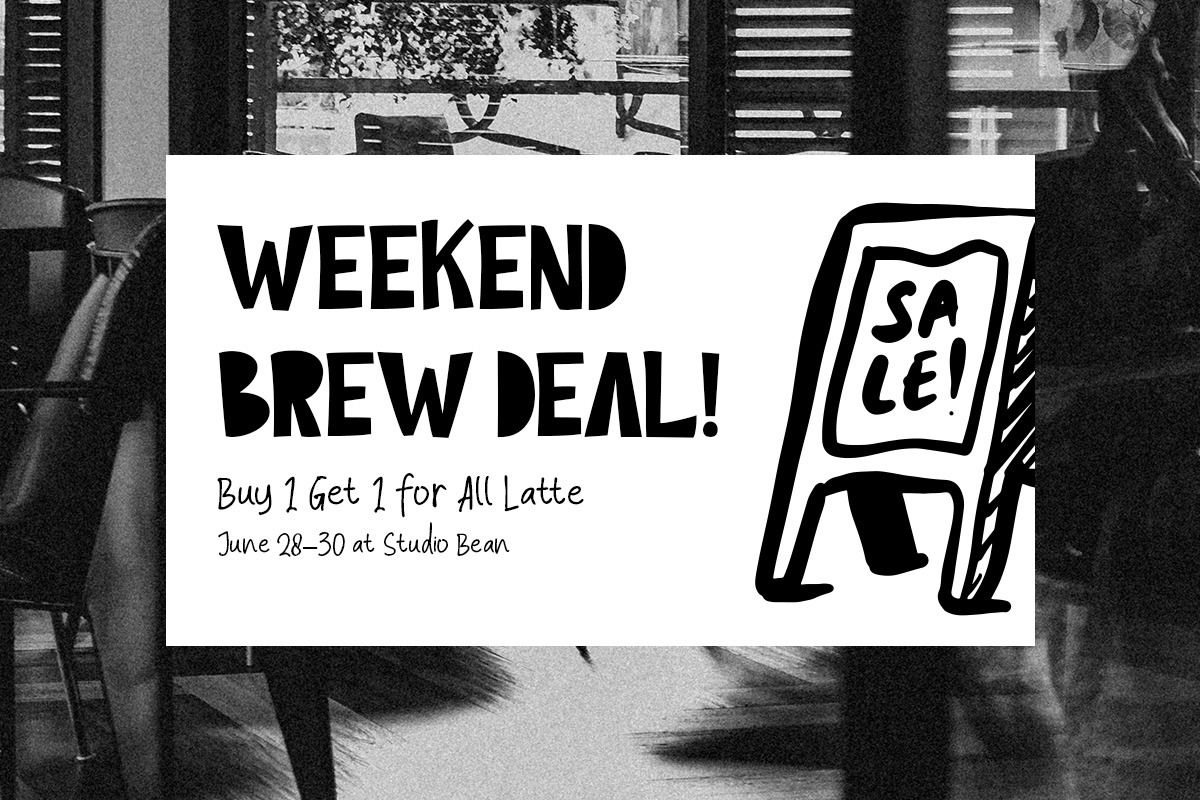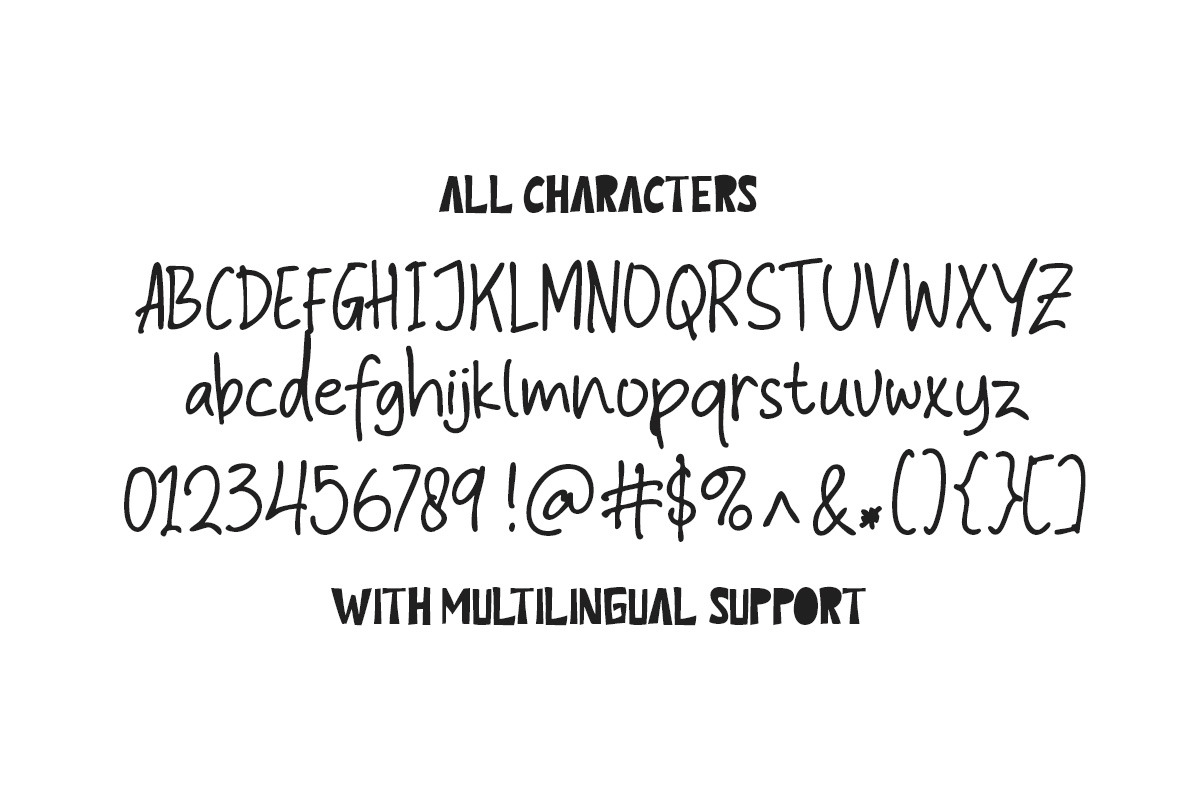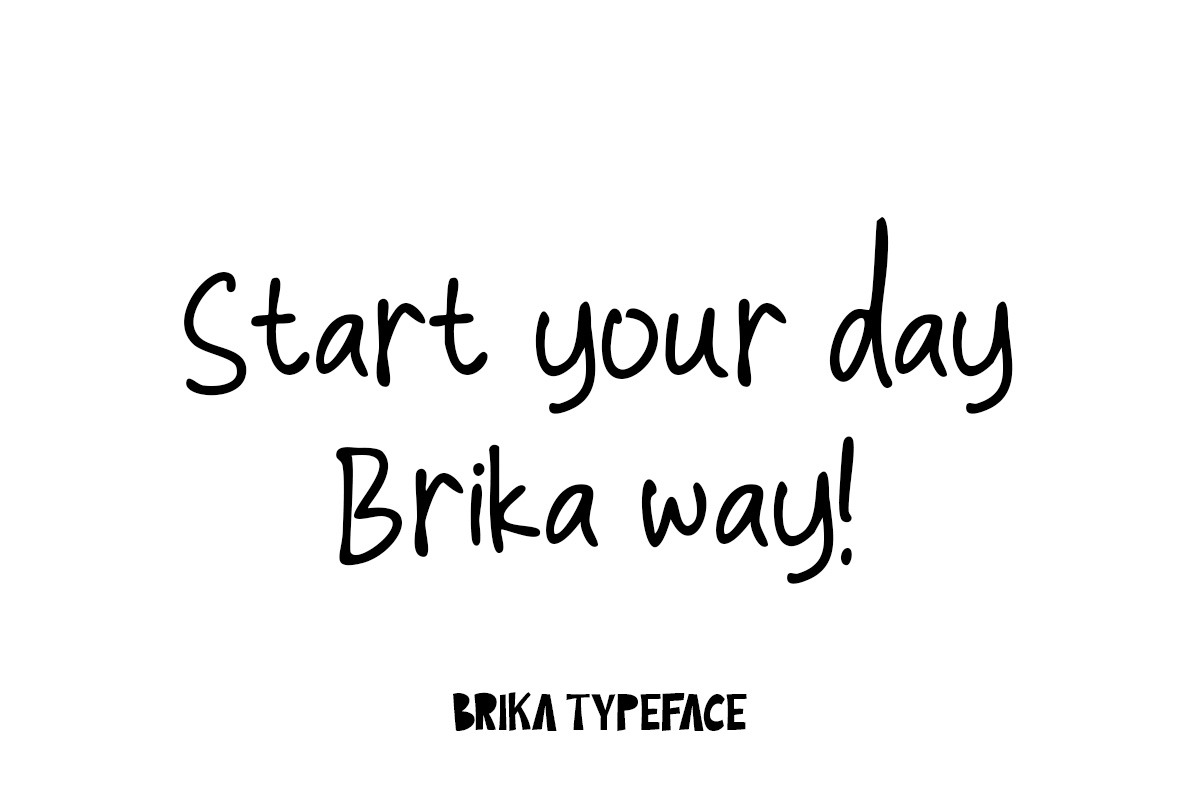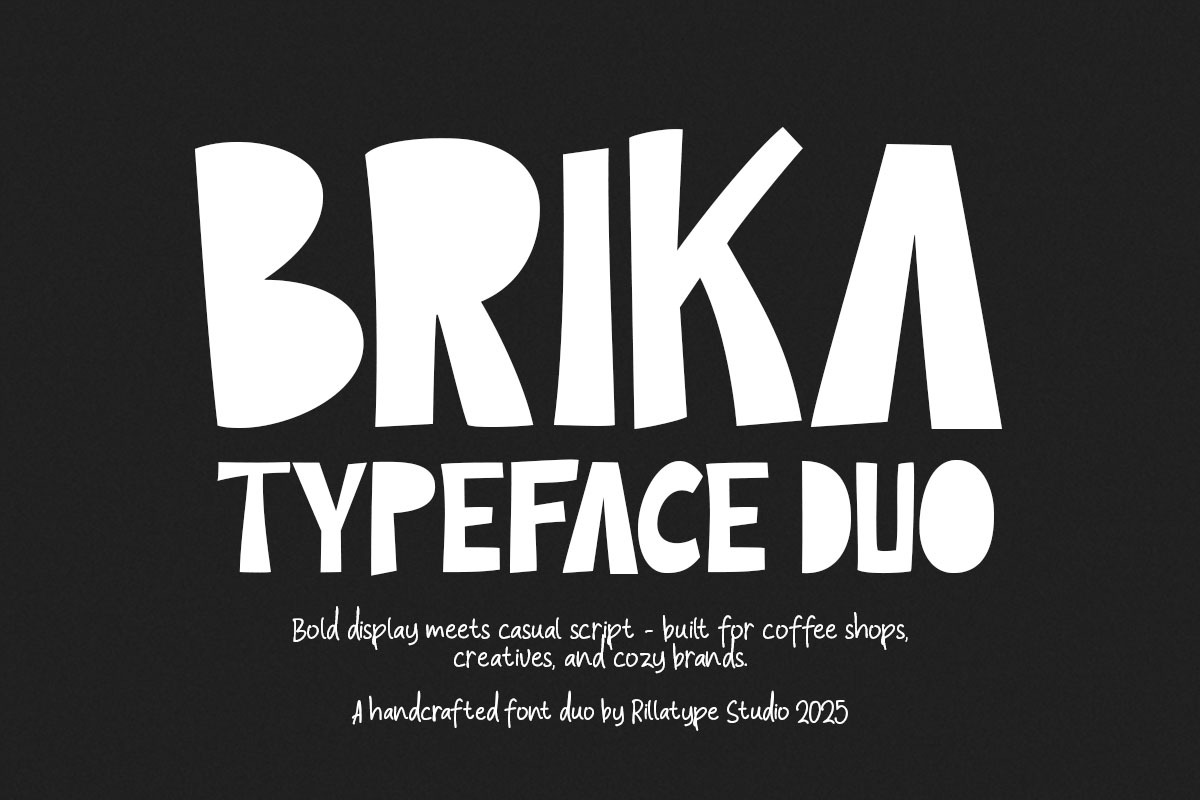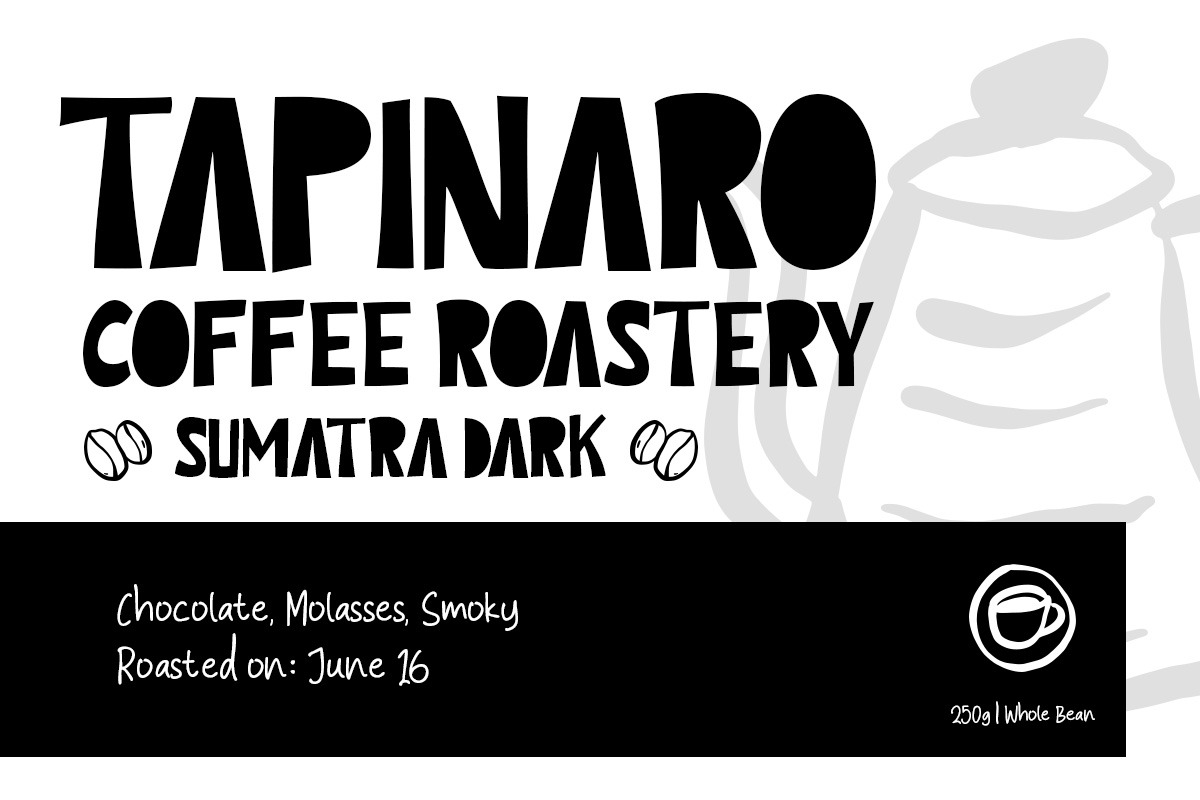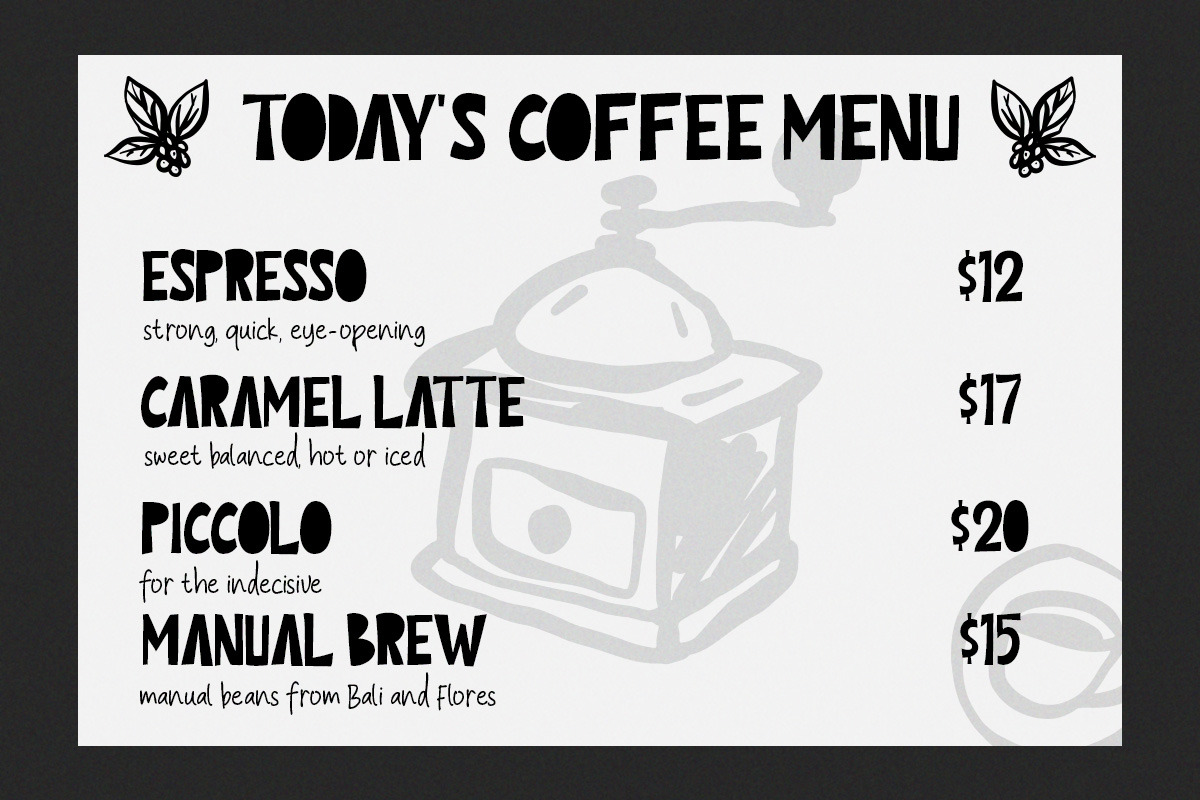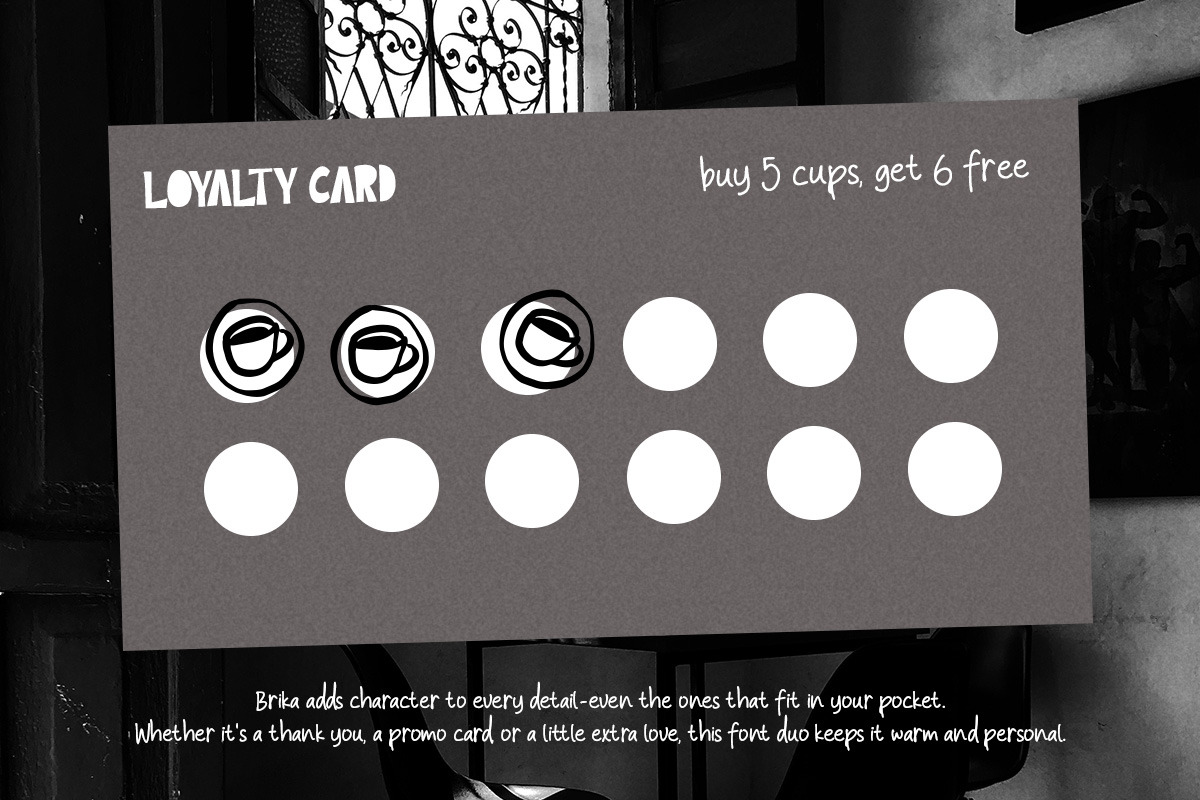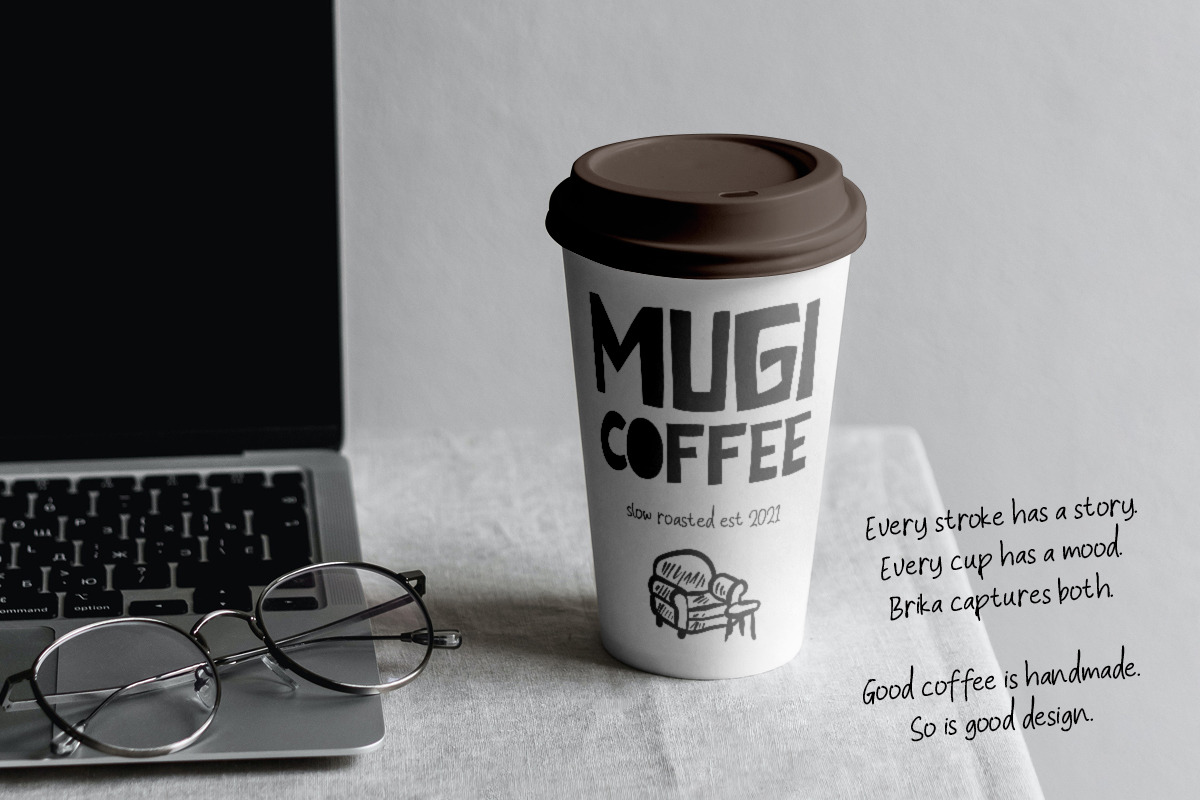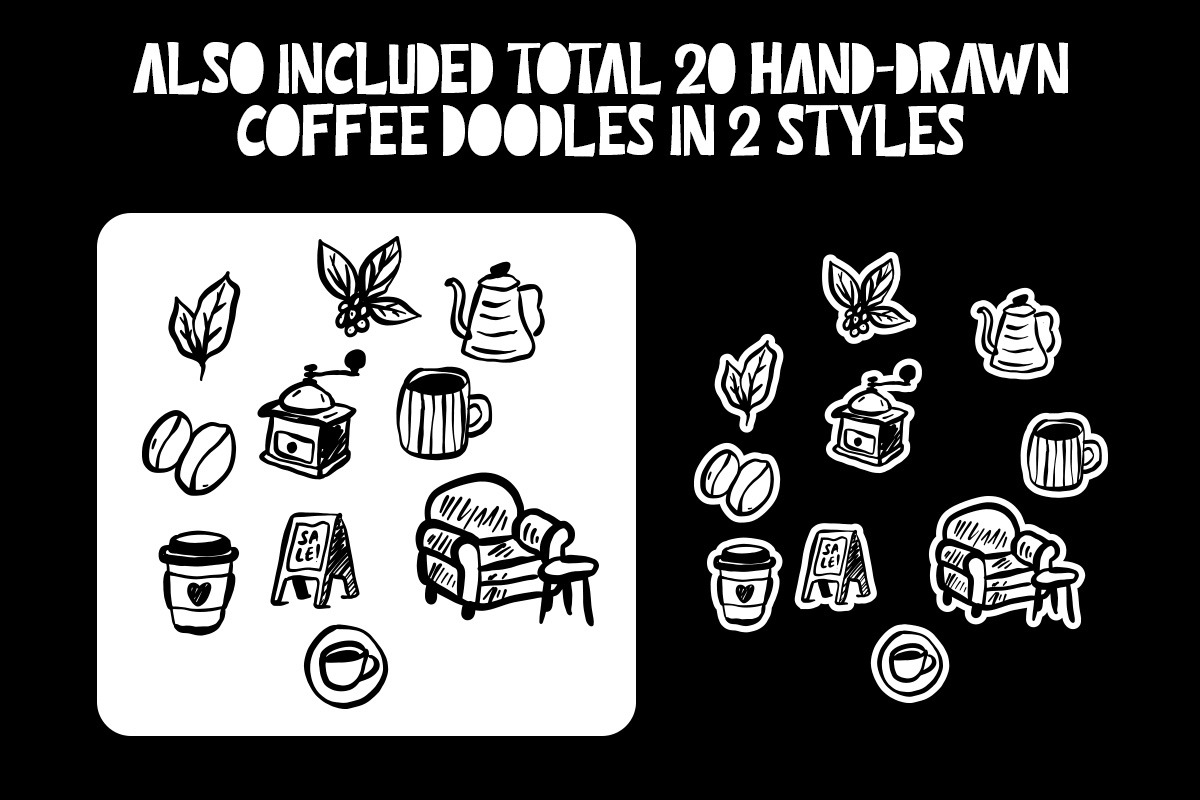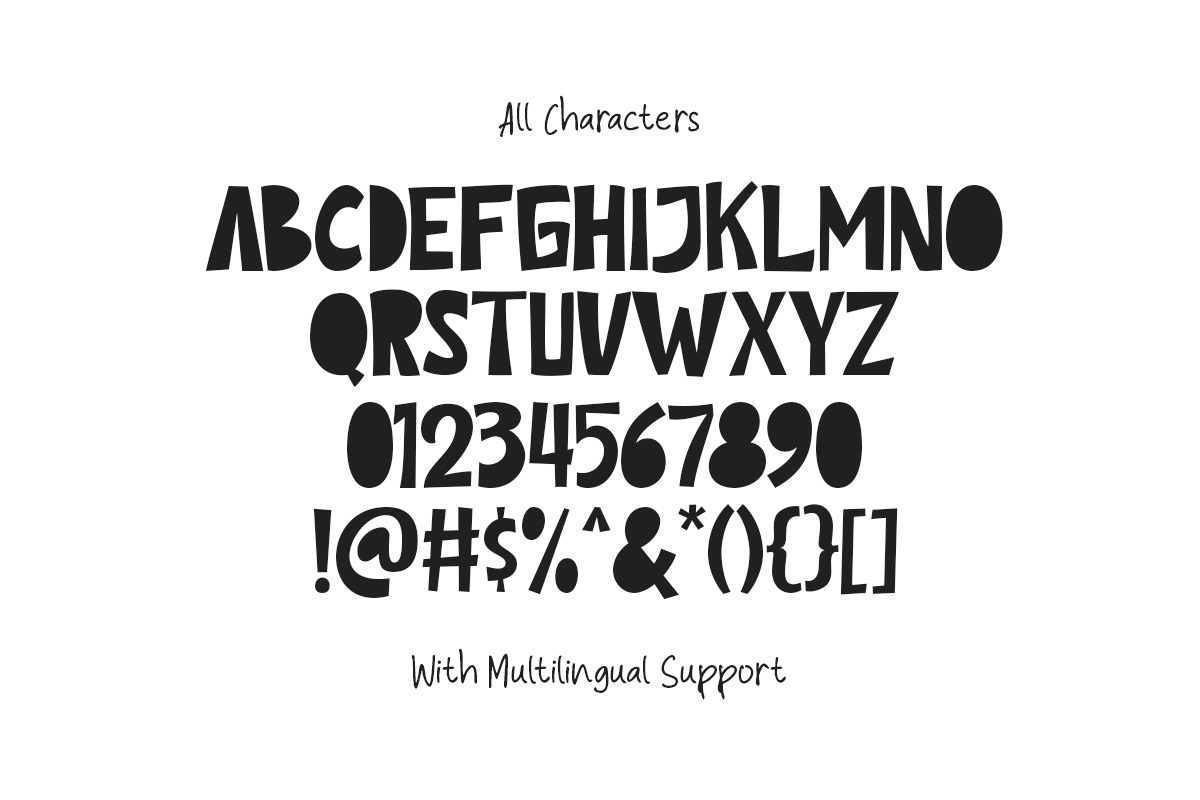
Brika – Handcrafted Font Duo + Bonus
Brika is a playful handcrafted font duo designed to bring warmth, charm, and character to your brand. It pairs a bold, quirky sans with a friendly handwritten script, perfect for cozy identities, coffee shops, packaging, wall art, and small business storytelling.
✨ Great for: Coffee packaging, posters, product labels, menus, wall art, and social media
Give your brand flavor. Brika is built for storytelling — one letter, one sketch at a time.